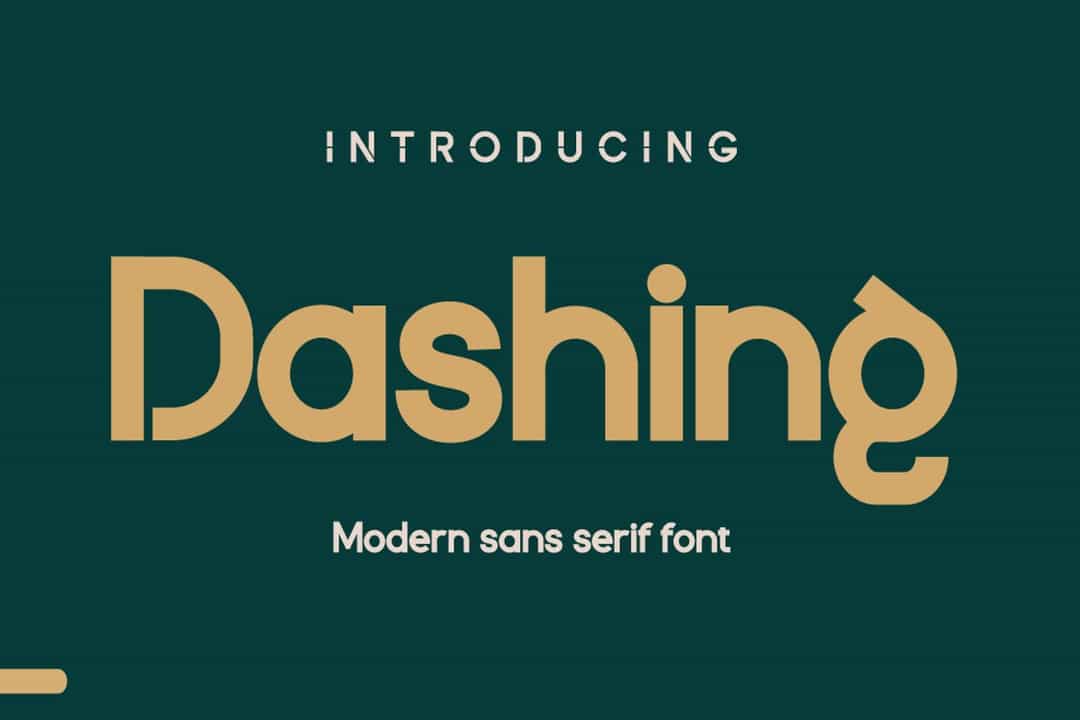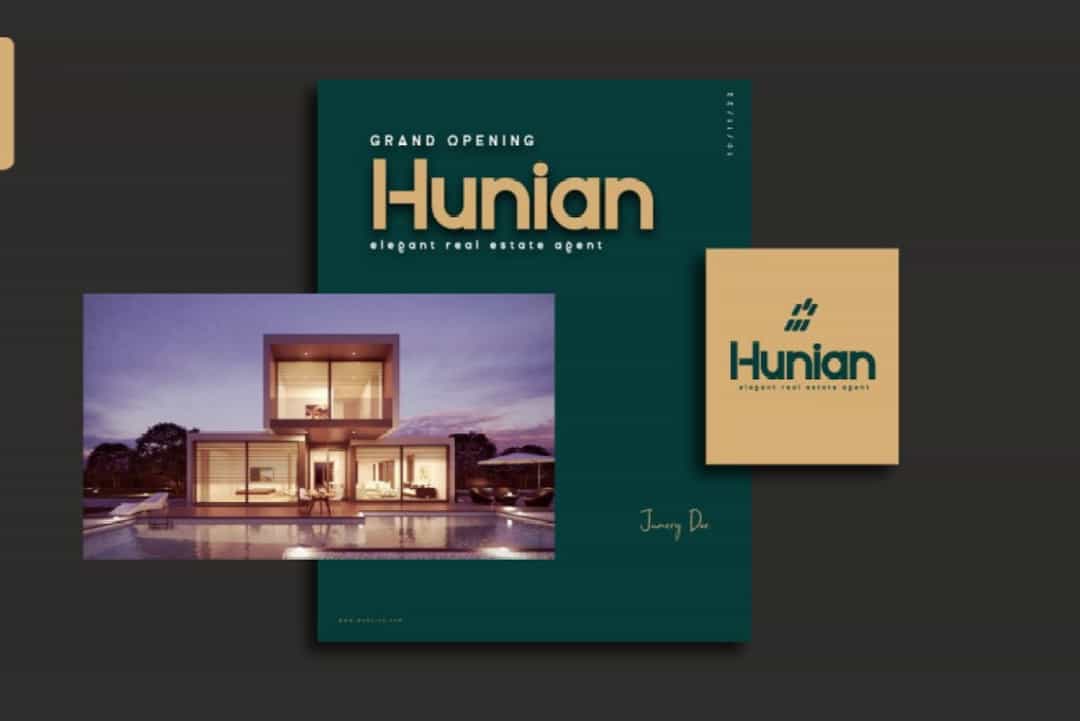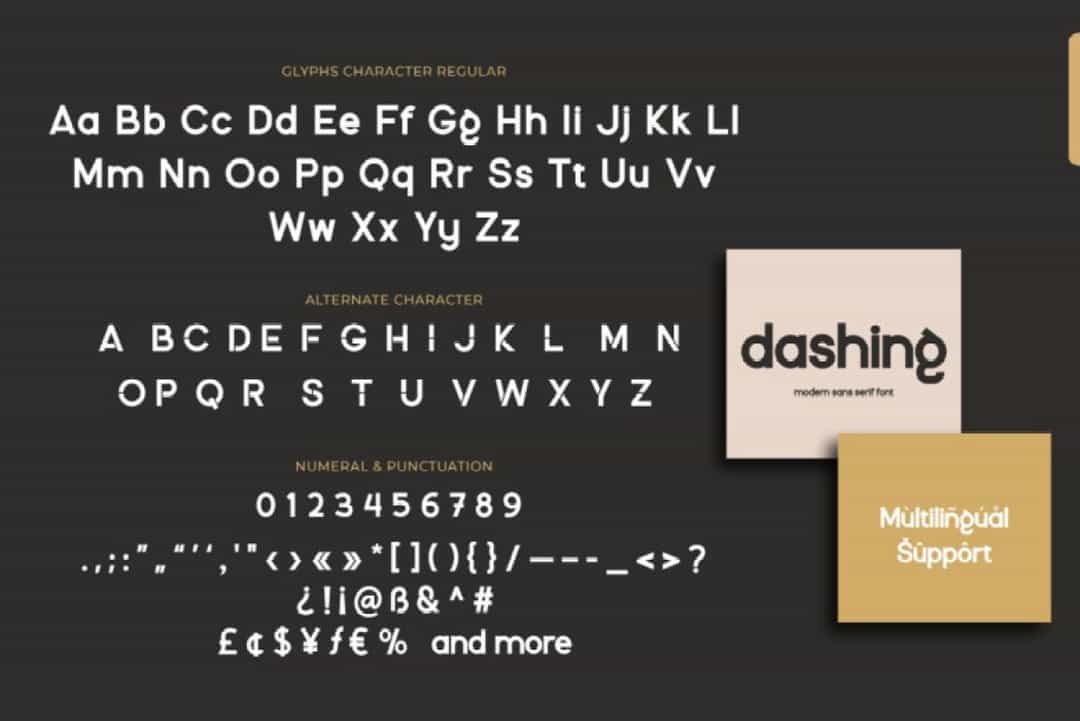
Dashing is a modern, simple and strong sans serif font. The font is geometric and can be used for phrases and titles as it makes writing easy and is suitable for a wide range of designs. This type is casual, smooth and elegant, having a casual and informal smooth character for each letter, especially the uppercase letters and is ideal for naming, trademarks and any other writing that requires an aesthetic appearance.